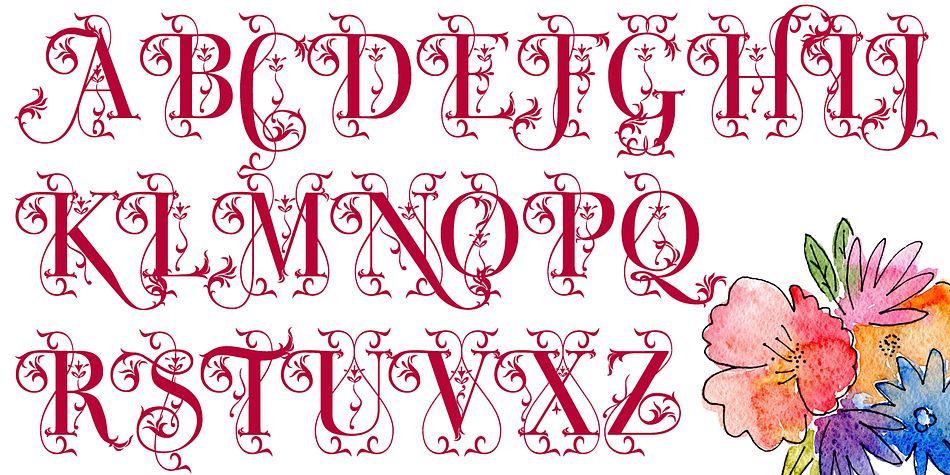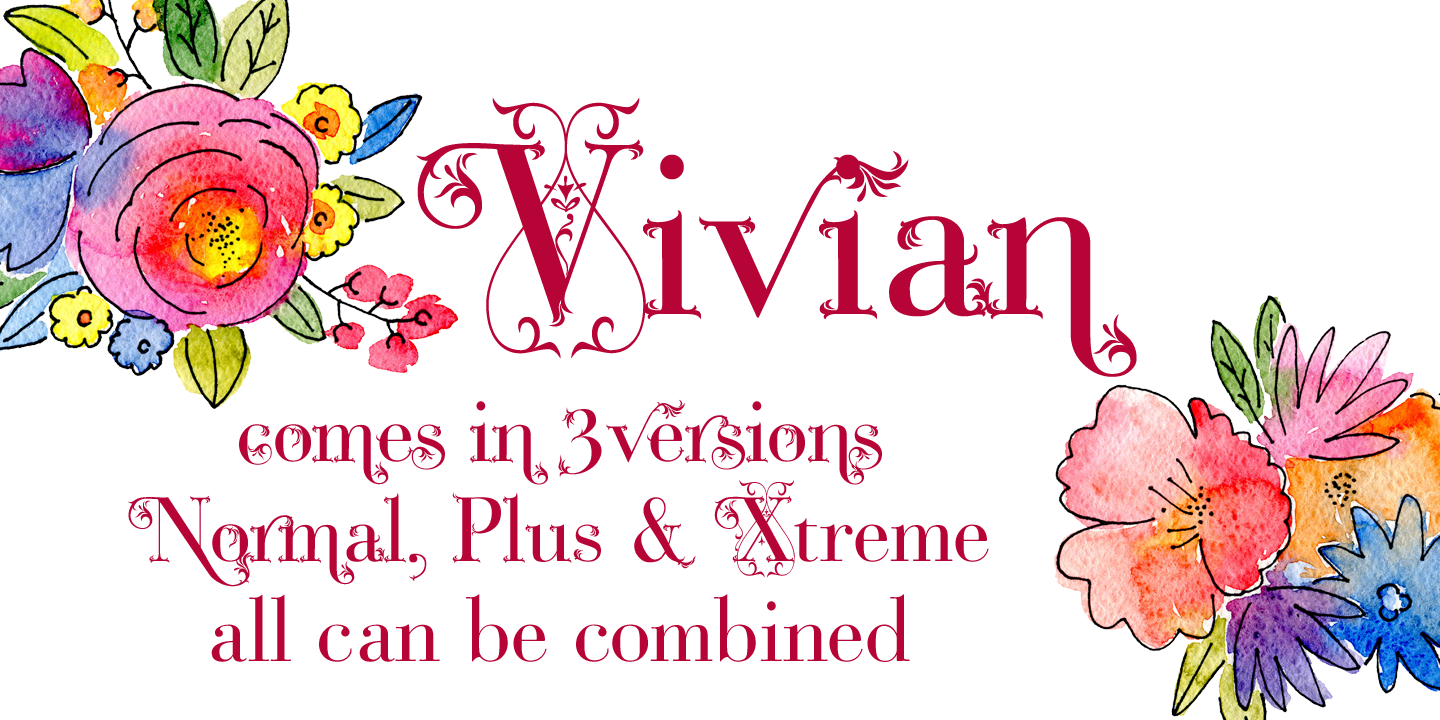
Vivian
Designed by Gert Wiescher, Vivian is a display serif font family. This typeface has three styles and was published by Wiescher-Design.
A highly decorated serif typeface based on the Bodoni Classic font.